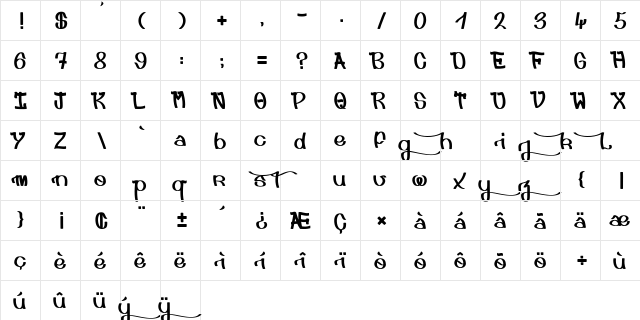
Djah Beat Regular
| Foundry | dcoxy Medina Gregory |
| Designer | dcoxy Medina Gregory |
Design Context for Djah Beat Typeface
Djah Beat is a composed and adaptable typeface that performs quietly and consistently across a wide range of design contexts.